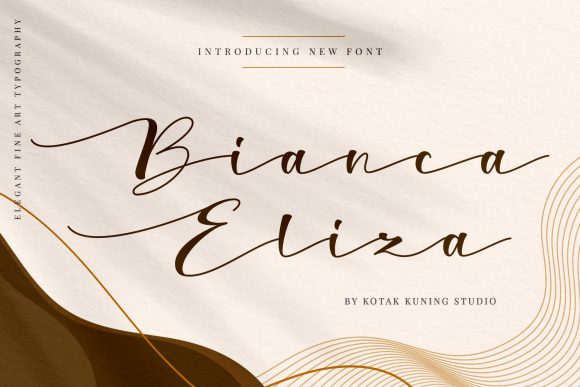
**Dive into the Enchanting World of Bianca Eliza: Your Signature Font for an Unforgettable Impression**
In a world where individuality shines, your designs hold the power to captivate and communicate like never before. Bianca Eliza, a meticulously crafted script font, emerges as the perfect companion for your creative journey. With its mesmerizing curves and elegant strokes, Bianca Eliza transforms your words into captivating works of art, leaving a lasting impression that speaks volumes.
**Step into a Realm of Elegance and Grace**
Bianca Eliza is more than just a font; it's an embodiment of sophistication and charm. Its carefully designed characters exude an aura of timeless beauty, adding an exquisite touch to your logos, branding, invitations, and any design project craving a touch of refinement.
**A Font that Adapts to Your Creative Vision**
With Bianca Eliza, versatility knows no bounds. This font seamlessly adapts to your creative vision, whether you're crafting heartfelt wedding invitations, creating eye-catching social media graphics, or designing captivating posters. Its graceful strokes lend a touch of elegance to any project, transforming the ordinary into the extraordinary.
**Experience the Beauty of Imperfection**
In a world obsessed with perfection, Bianca Eliza embraces the beauty of imperfection. Its hand-crafted charm adds a touch of authenticity and personality to your designs. Each letter, meticulously crafted, carries a story, inviting your audience to connect with your brand on a deeper level.
**Unleash Your Creativity with Bianca Eliza**
Bianca Eliza is your gateway to a world of boundless creativity. Its enchanting curves and flowing lines inspire you to push the boundaries of your imagination. From whimsical wedding invitations that capture hearts to captivating social media posts that demand attention, Bianca Eliza empowers you to create designs that resonate with your audience.
**Bianca Eliza: A Journey into Artistic Expression**
Join the creative journey with Bianca Eliza and discover the transformative power of a font. As you immerse yourself in its world of elegance, grace, and authenticity, you'll find yourself crafting designs that leave an indelible mark. Let Bianca Eliza be your muse, guiding you towards creative fulfillment and artistic brilliance.